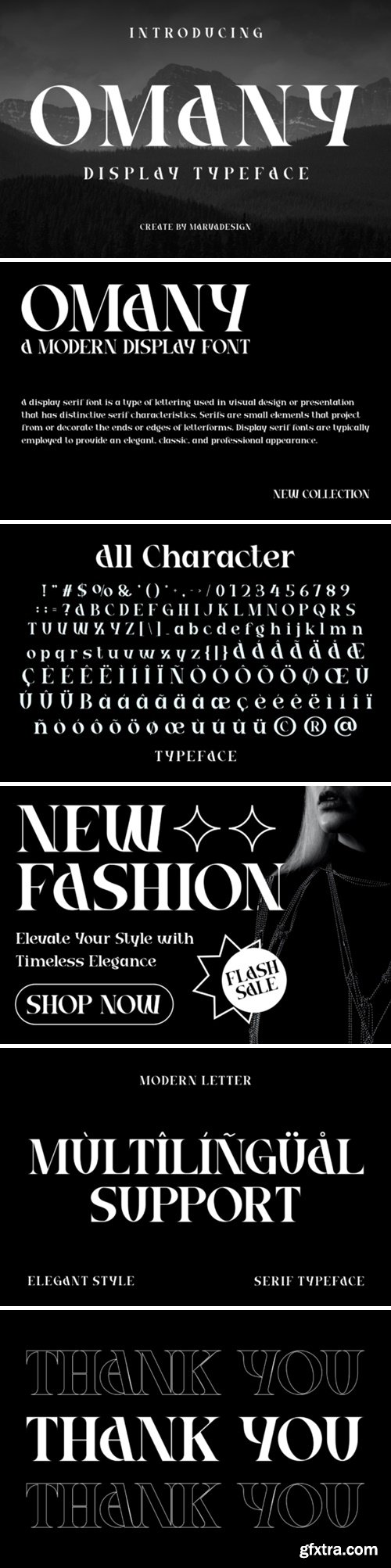
奥曼字体
Omany Font
Omany is a modern font with a bold and authentic touch. The font suits any branding project like logo, template design, product, and many more. Outstanding in a wide range of contexts.